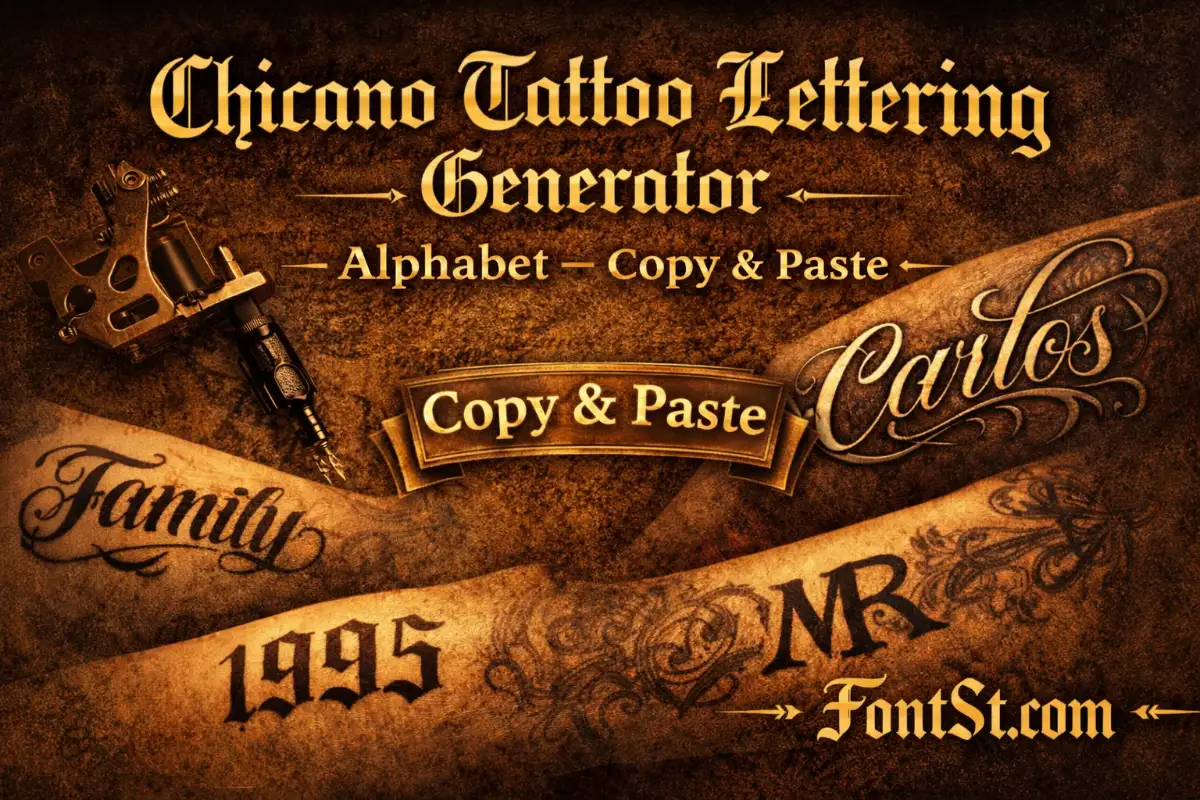
Chicano Font Generator – Lettering Alphabet Copy & Paste
Create bold Chicano-style lettering in seconds with Font St’s generator below. Type your text, choose the style you like, then Copy & Paste it for bios, captions, titles, and tattoo mockups.
Type your text into Font St’s Chicano generator to get clean West Coast–style lettering in seconds—perfect for names, initials, and year designs. Pick the vibe you like, then Copy & Paste it anywhere to preview your bio, caption, title, or tattoo mockup instantly.
A Chicano font generator turns normal text into Chicano-inspired lettering styles you can use instantly—without installing font files. People use this style for tattoo name concepts, street-style headlines, profile aesthetics, and “West Coast” lettering vibes. Because “Chicano lettering” is a broad look, a generator helps you test the same word in multiple directions quickly (script, bold lettering, graffiti handstyle, Old English-inspired) and pick what stays clean and readable.
A Chicano cursive font is the go-to when you want a handwritten flow that still feels bold and confident. This style is great for longer names and small-to-medium placements because it stays readable more easily than dense blackletter.
Real font examples people commonly see in “Chicano script” listings include names like Bandito Script and Vida Bandida on font marketplaces.
A Chicano writing font usually means a style that feels written by hand—less “perfect,” more natural rhythm. It overlaps with script, but the key difference is vibe: writing styles often feel more casual and personal.
Gangster Chicano Number Fonts: Years, Codes, Lucky Numbers
Gangster Chicano number fonts are popular for tattoo years (1990–2003), “lucky numbers” (222/444), and identity codes. Numbers look best when they’re bold but simple—clarity always wins.
If you want inspiration, many “Chicano tattoo” font packs emphasize numerals and alternates; for example, some Chicano/tattoo font listings highlight included numbers and swashes as core features.
Chicano Cursive Alphabet: Clean Letters That Still Flow
A Chicano cursive alphabet is the best option when you want initials that look handwritten rather than sharp or gothic. This is especially useful for:
Pro tip: cursive alphabets look best when you avoid mixing too many styles in one line. Pick one clean cursive output and keep the rest of the design minimal.
Chicano Gangster Old English Letters: Blackletter With Street Energy
People use “Chicano gangster Old English letters” to describe bold blackletter/Old English looks associated with classic tattoo and street lettering culture. It’s iconic, dramatic, and instantly recognizable—but it gets dense fast.
Chicano Old English Font: Popular References You’ll See Online
A Chicano Old English font usually refers to blackletter/Old English styles used in Chicano-inspired tattoo contexts. On marketplaces, Chicano categories often feature a mix of script and graffiti, but also include blackletter-adjacent options and “Chicano tattoo font” products.
If you’re looking for real-world font references that appear in Chicano-style listings, you’ll commonly run into:
Script options like Bandito Script
Graffiti/handstyle options like CaliCholo Graffiti
“Chicano tattoo” font product listings that emphasize swashes, alternates, and numerals
On Font St, you don’t need the exact font file to draft the look—you just need the right style direction and a clean output you can test at real size.
West Coast Chicano Lettering: The Clean Layout Rules
“West Coast Chicano lettering” is more than a font—it’s also a layout style. Even the best lettering can look off if the spacing and structure are messy.
This Chicano Font Generator – Lettering Alphabet helps you create Chicano-style text fast—cursive script, bold lettering alphabets, numbers for years, and Old English-inspired statement words. Type your text, copy the cleanest output, and preview it at real size for the sharpest results in bios, captions, titles, and tattoo mockups.